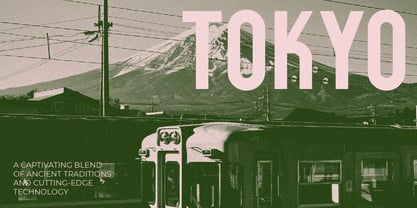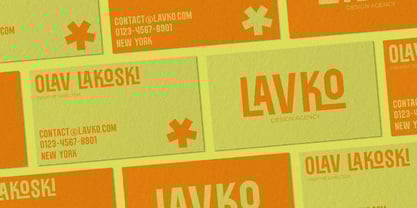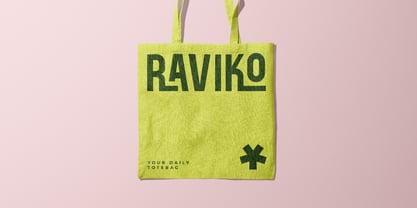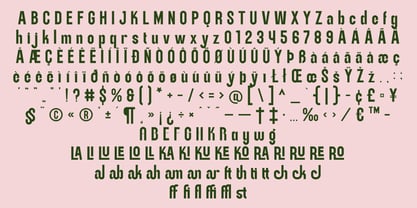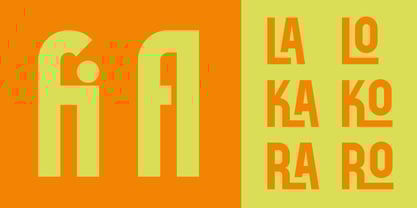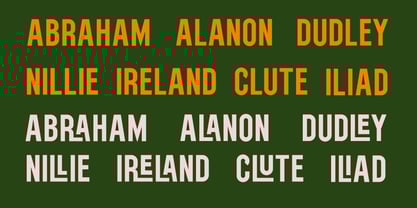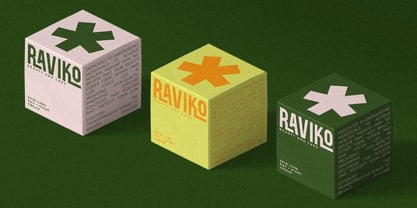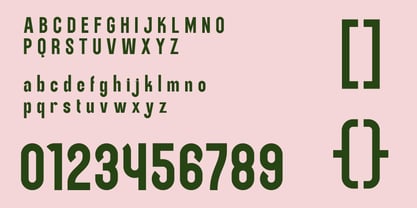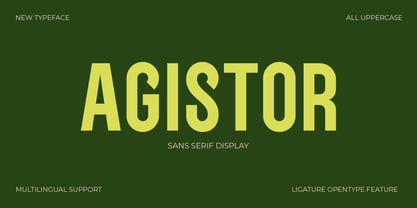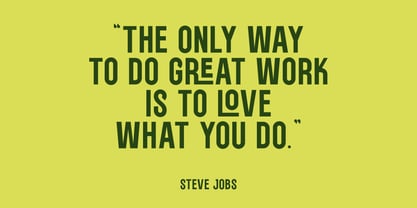
Agistors
The Agistors Font Family was designed by Lucky Fitriadi and published by Brainwaves Studio. Agistors contains 2 styles and family package options. More about this family
Agistor – Bold, Modern, with a Retro Twist
Agistor is a versatile sans-serif display font that combines bold modern aesthetics with a touch of retro nostalgia. Its clean, geometric shapes are paired with stylish uppercase, lowercase characters and unique ligatures, making it a perfect choice for standout designs.
Why Choose Agistor?
• Uppercase & Lowercase Letters: Ideal for creating dynamic and balanced typography.
• Retro-Modern Blend: A sleek design with vintage-inspired charm for timeless appeal.
• Stylish Ligatures: Add flair and personality to your text layouts.
• Multilingual Support: Perfect for global projects.